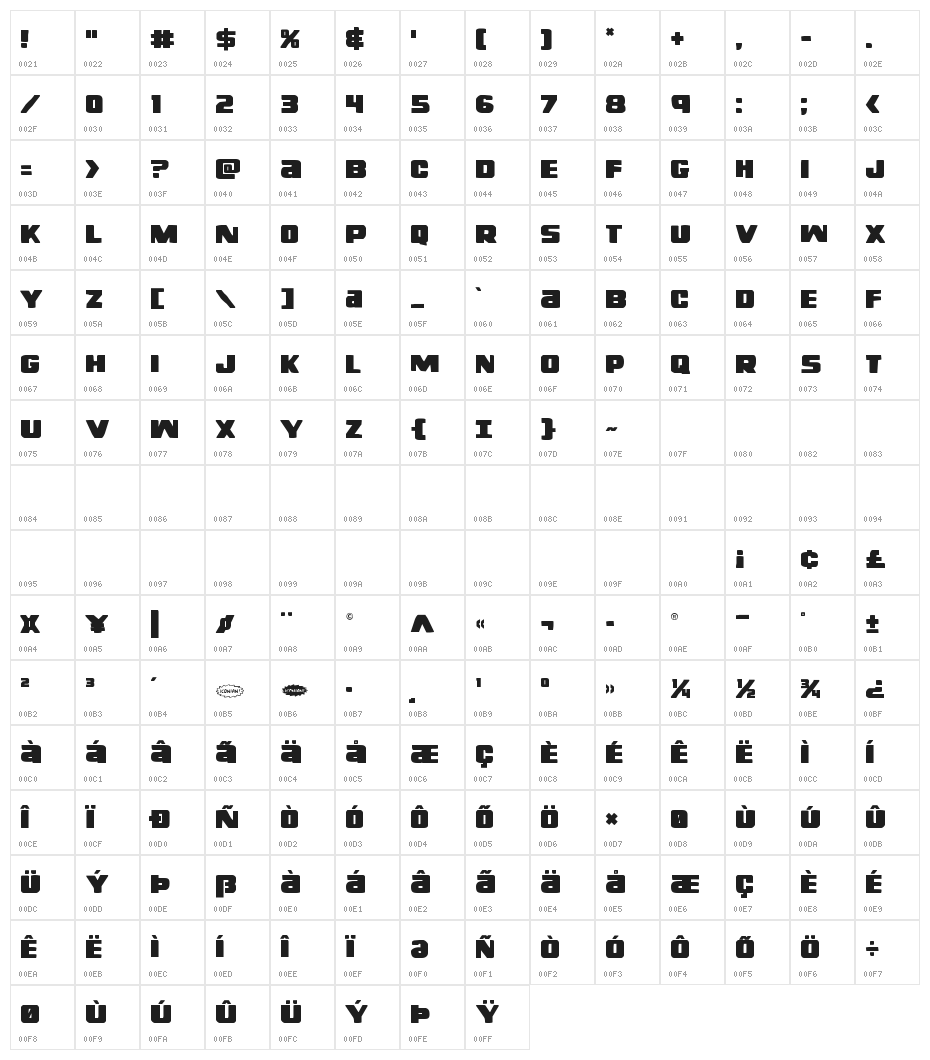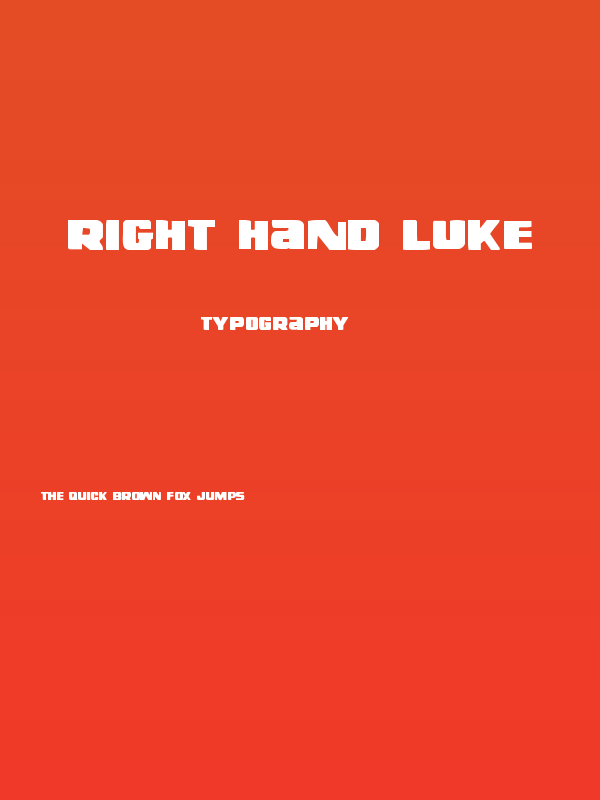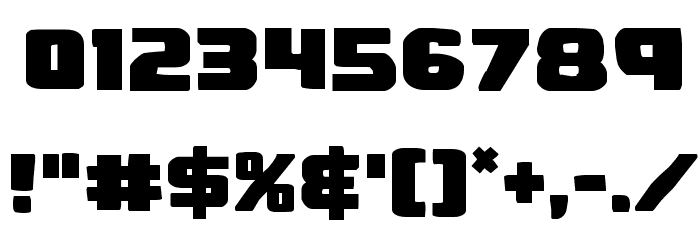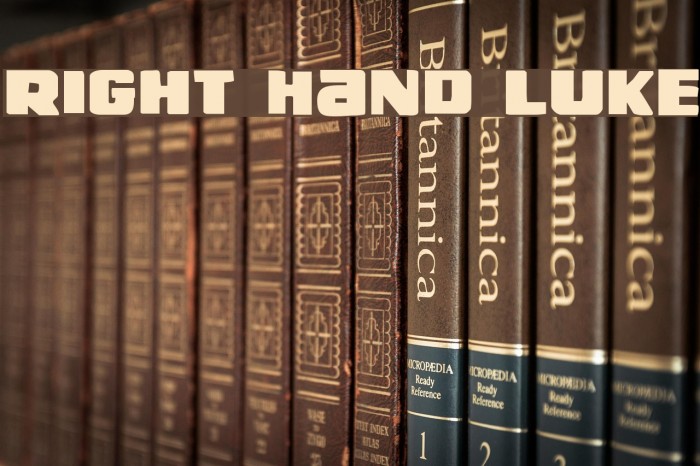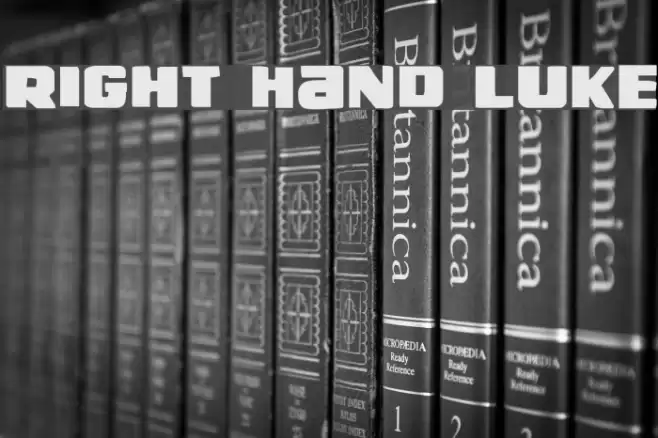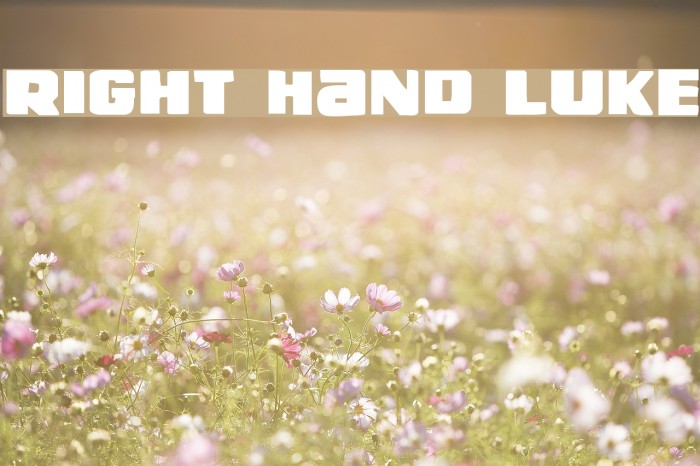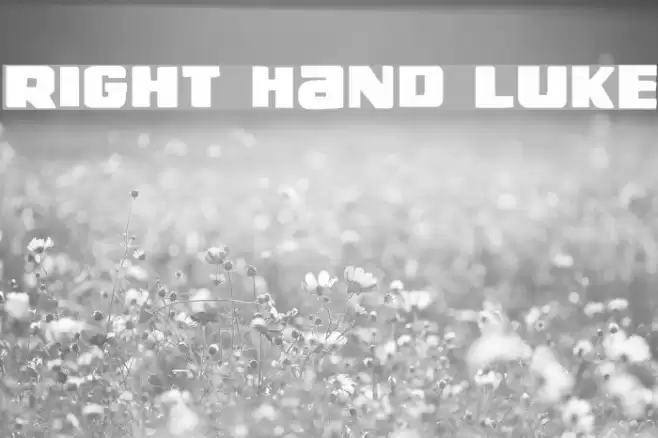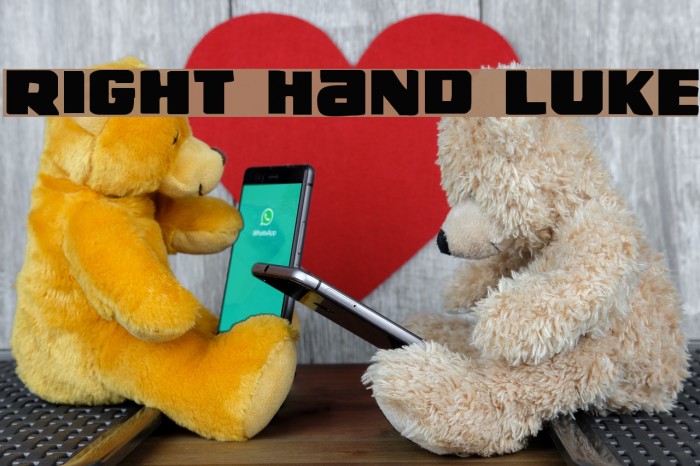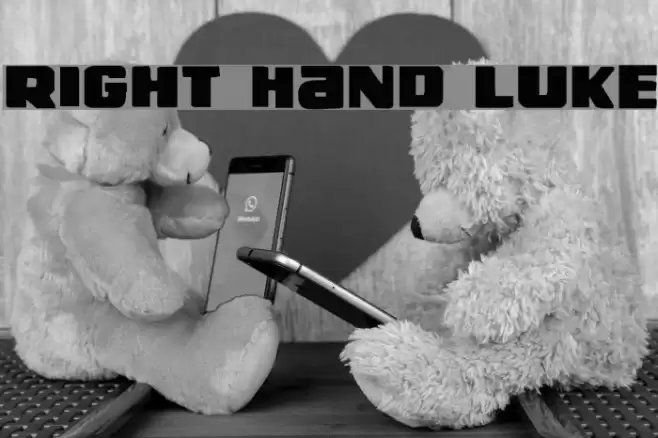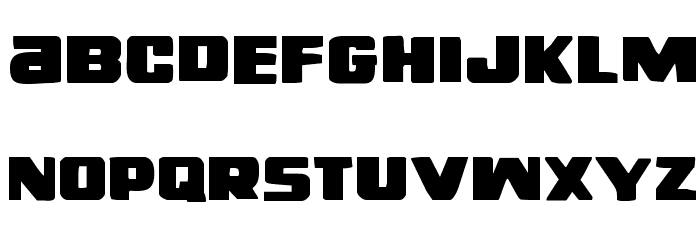
Right Hand Luke Font
Right Hand Luke Description
This bold and impactful font features thick, blocky characters with a strong presence. The uppercase and lowercase letters share a consistent weight, creating a uniform appearance. The design is geometric with slightly rounded edges, giving it a modern yet approachable feel. The numbers and special characters maintain the same boldness, ensuring readability and consistency across different uses. This font is well-suited for attention-grabbing headlines and logos, where a strong visual impact is desired.
| Proposed Projects | Ideal for branding, posters, headlines, and any project requiring a bold statement. |